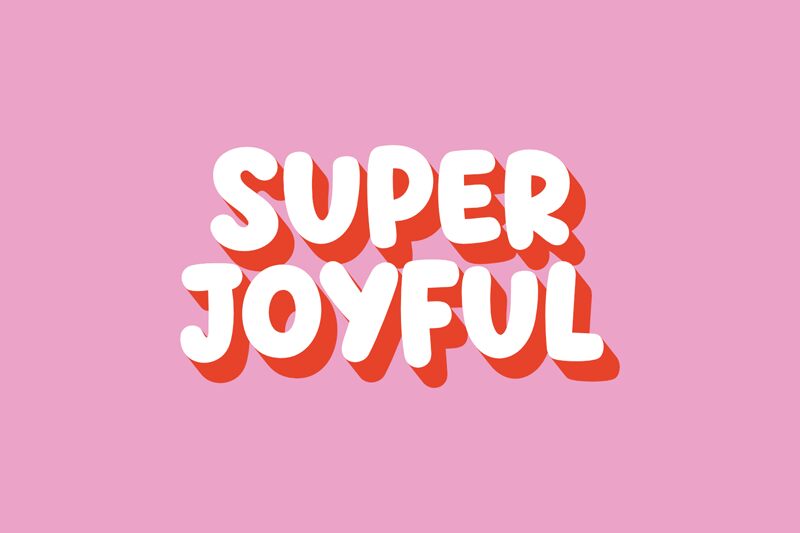
Super Joyful
Super Joyful font by fsuarez913 is a free bold cartoon font that bubbles with soft, pillowy curves and chunky, inky silhouettes. Each letter feels hand-squished—rounded terminals, tight rhythm, and generous counters that keep lines bouncy and legible at a glance. It’s made to radiate cheer without getting messy, so your headlines land with friendly oomph instead of shouting.
Using Super Joyful, your work sings on kids’ book covers, birthday invitations, toy packaging, ice-cream menus, classroom posters, and playful YouTube thumbnails. The compact spacing helps short phrases stack neatly on stickers and badges, while the thick strokes hold up on colorful backgrounds. Pair this free font with a light geometric sans for details, and let Super Joyful carry the headline smile.